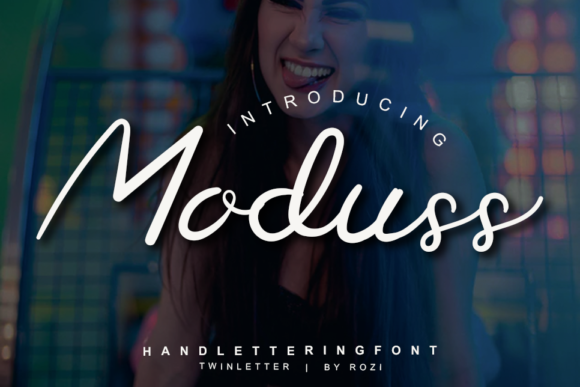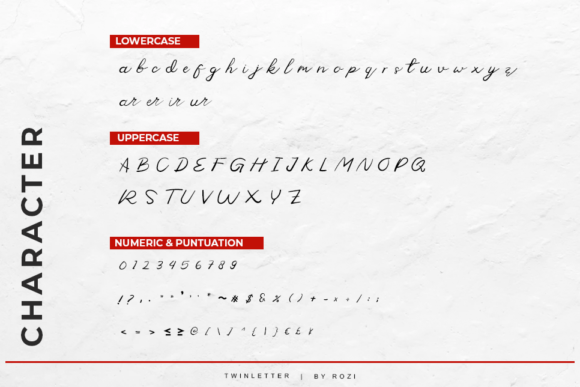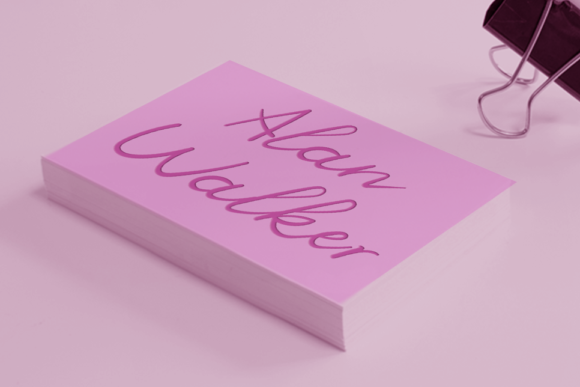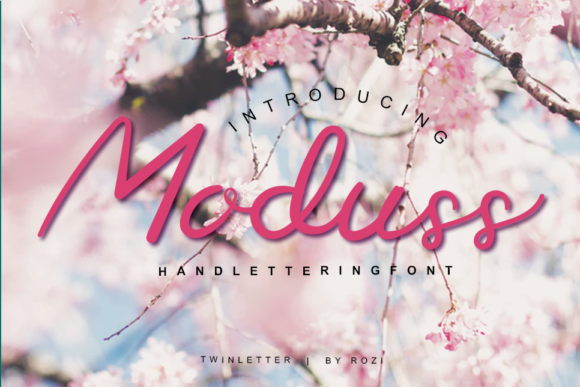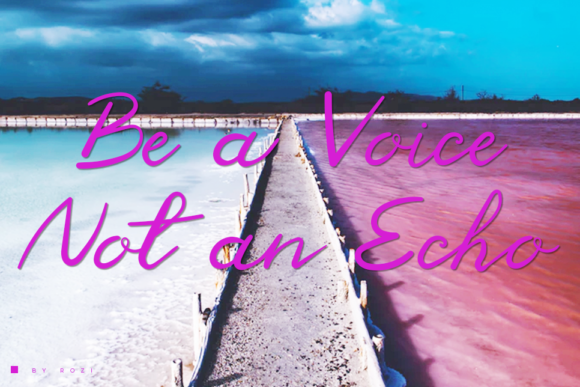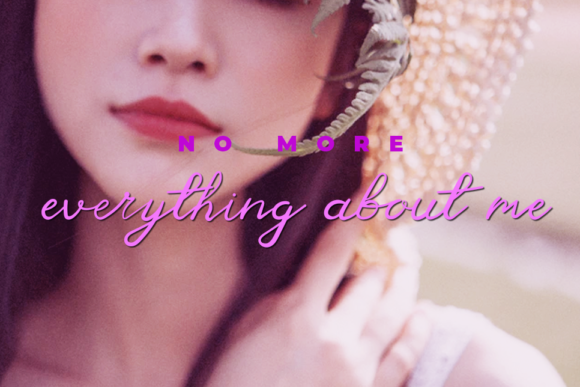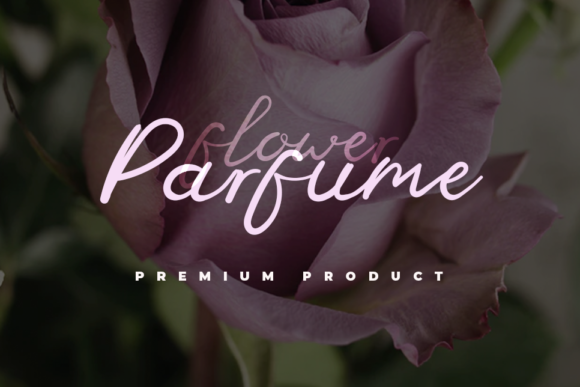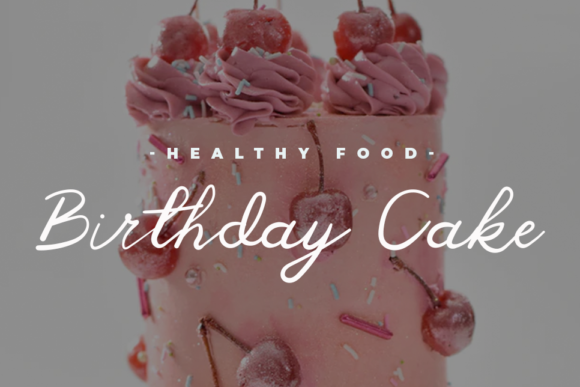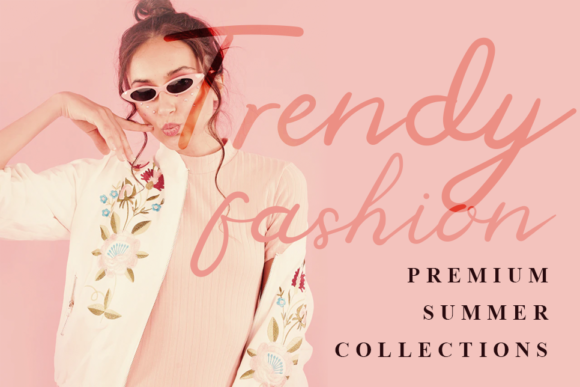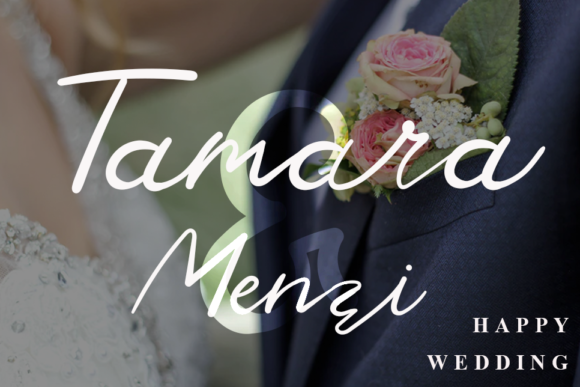
Moduss Font
About Moduss Font
Moduss feels equally charming and elegant. It features an incredibly classic style, while still keeping a friendly feel. This handwritten font is the perfect font for making original and outstanding designs.